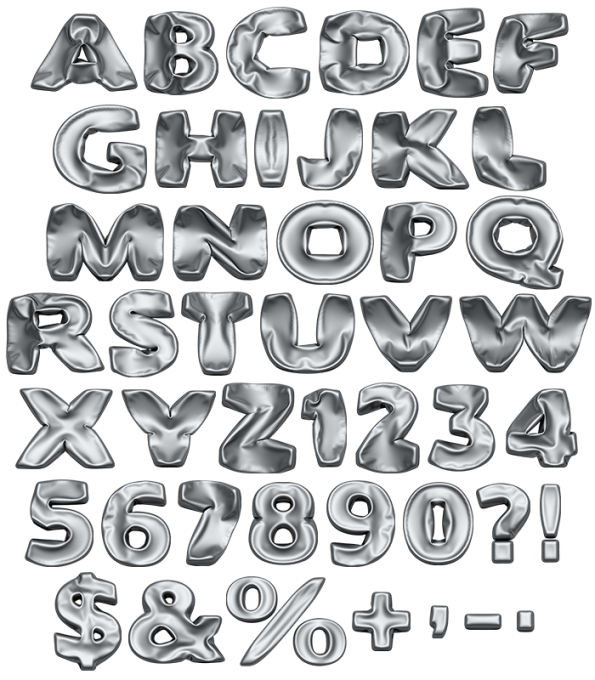
Welcome to hell
Ironfall Font is great to depict some collapse, crisis or just a bunch of discounts and falling prizes. It’s made entirely from iron which is make the effect of Ironfall Font incomparably impressive and convincing. Welcome to hell!
Iron is a chemical element with the symbol Fe and atomic number 26. Ironfall font depicts falling and melting apart iron. Letters being massive and thick, having metallic colour. This font is again – mascuiline, Iron Man-like and usable in technics related topics.
This font set contains all the elements besides letters, such as figures, punctuation marks.
All letters and glyphs that comprises this font you can see on the preview.